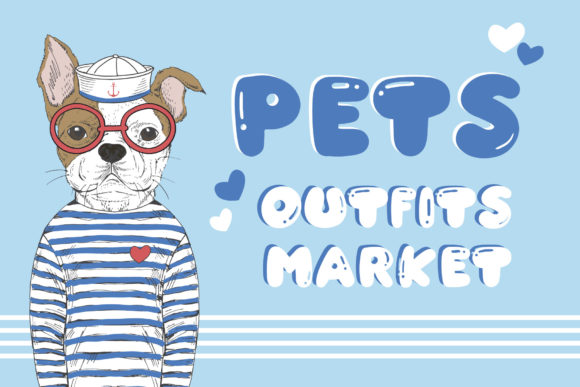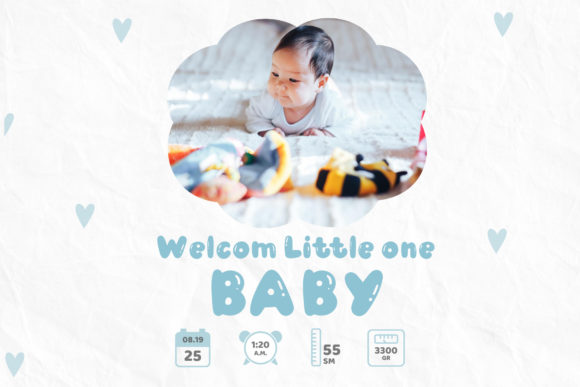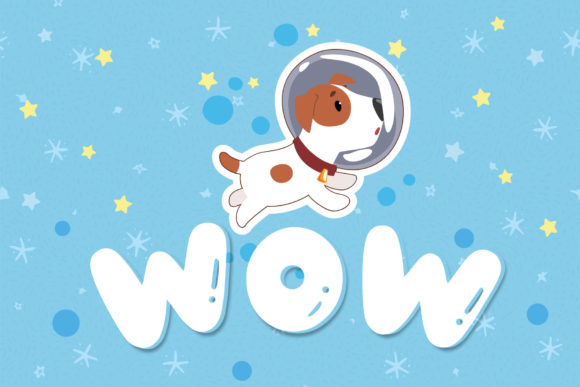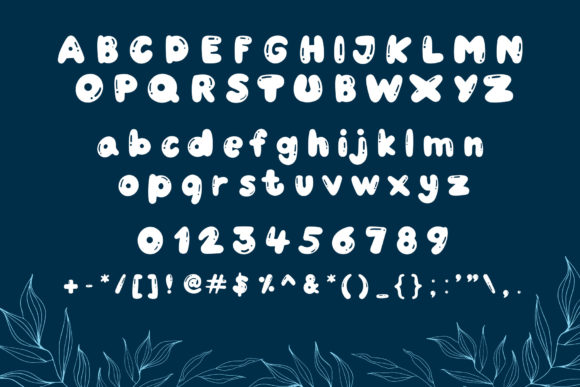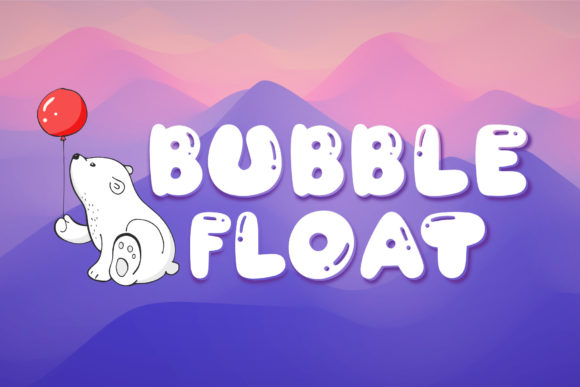
The Joy of Bubble Float Font: A Designer’s New Best Friend
A Personal Review of Bubble Float Font
Bubble Float is a cute, easy-to-read, and jolly display font that’s perfect for a wide range of projects. Here’s what I love about it:
- ✅ Readability: Despite its playful nature, Bubble Float is surprisingly easy to read, even in smaller sizes.
- ✨ Versatility: This font can be used in various projects, such as blog posts, logos, branding, ads, invitations, greeting cards, planners, photo albums, decorations, and much more.
- 🎉 Fun and playful vibe: Bubble Float adds a touch of whimsy and fun to any design, making it perfect for projects that require a lighthearted tone.
While I adore Bubble Float, there are a few things to keep in mind:
- ⚠️ Limited use in formal contexts: Due to its playful nature, Bubble Float might not be the best choice for formal or professional projects, such as business reports or academic papers.
- 🤔 Legibility in small sizes: While generally easy to read, Bubble Float can become a bit tricky to read in very small sizes (below 10pt). It’s best used in larger sizes for optimal legibility.
The Story Behind Bubble Float Font
Bubble Float was designed with the intention of creating a fun, playful, and easy-to-read font for creative projects. The designer aimed to craft a font that would bring a smile to people’s faces and add a touch of whimsy to their designs. With its cute and jolly vibe, Bubble Float is sure to become a favorite among designers, crafters, and creative hobbyists.
| What type of projects is Bubble Float suitable for? | Bubble Float is perfect for a wide range of projects, including blog posts, logos, branding, ads, invitations, greeting cards, planners, photo albums, decorations, and much more. |
| Is Bubble Float easy to read? | Yes, despite its playful nature, Bubble Float is surprisingly easy to read, even in smaller sizes. |
| Does Bubble Float come with OpenType features and glyphs? | Yes, Bubble Float comes with a range of OpenType features and glyphs that can enhance your designs. |